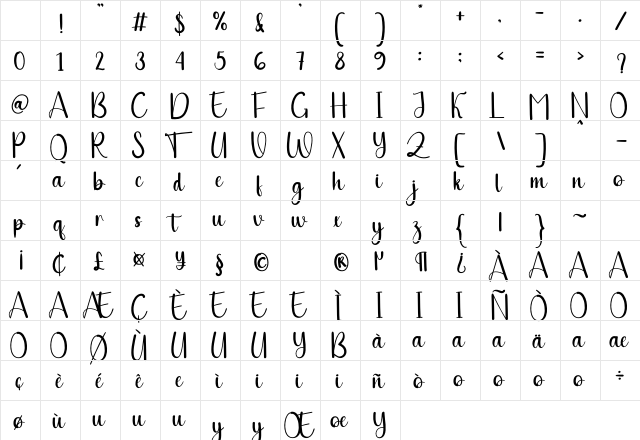
Complete Winter Mountain Regular glyph index. Displaying only characters natively supported by Winter Mountain Regular font.
Winter Mountain is a composed and adaptable typeface that performs quietly and consistently across a wide range of design contexts.